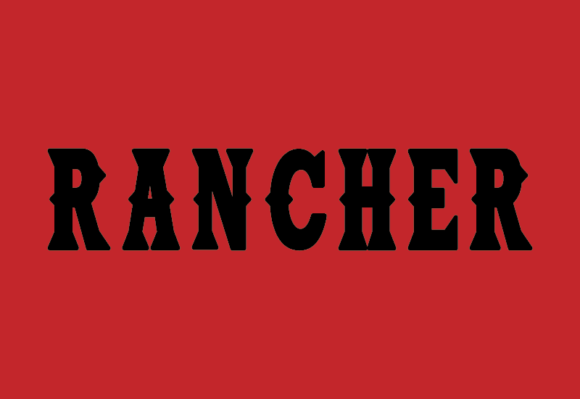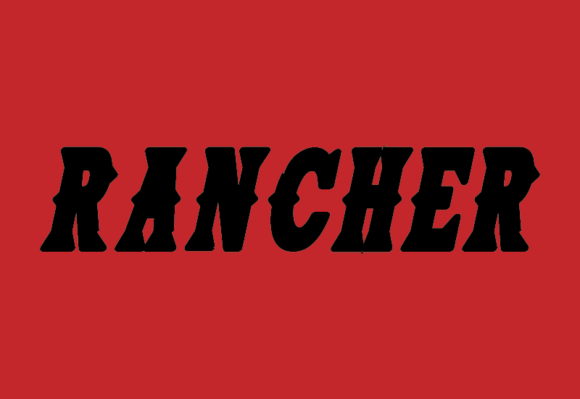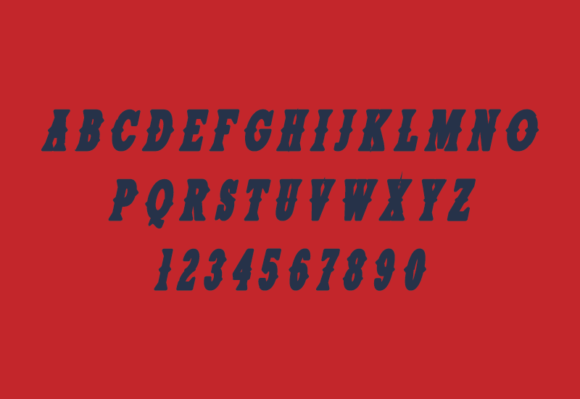
Rancher Font: Vintage Western Serif for Authentic Logo Design
About the Rancher Font
Experience the unique personality of Rancher Font, a font designed for impact. Rancher is a simple Western-style serif font designed for a clean retro look. With its vintage balanced proportions, this font is perfect for creating a minimalist aesthetic in logos, web design, and branding. The Rancher font style embodies the rugged spirit of the untamed frontier. Its letters are etched with the weathered texture of sun-beaten wood, evoking the essence of wide-open prairies and endless horizons.
Rancher’s strong, yet readable forms make it ideal for headlines, short text blocks in branding materials, and western-themed projects. It excels in logos, posters, and packaging where its retro aesthetic can create a strong visual impact. However, its serif design and relatively high x-height make it less suitable for extended body text or UI elements where readability at smaller sizes is crucial.
Pairing Rancher with a clean sans-serif like Montserrat or a geometric sans-serif such as Futura would create a modern contrast, balancing its vintage character with a contemporary feel. For a more rustic pairing, consider a complementary serif like Playfair Display or a handwritten script font for a touch of informal warmth.
Rancher’s overall personality is straightforward and rugged, conveying a sense of reliability and authenticity. It is best suited for brands aiming for a classic, timeless aesthetic with a touch of western charm.
Rancher Font Usage Examples
Rancher Font Example